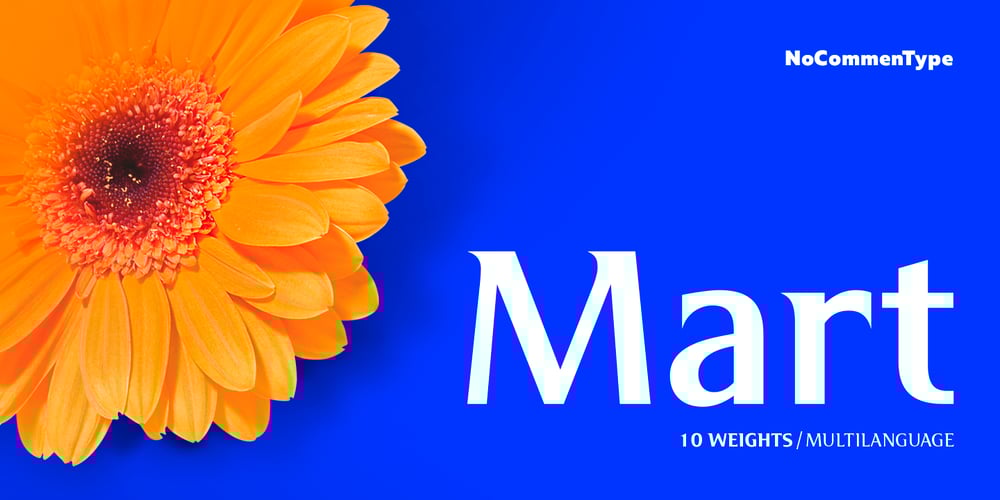
Mart
Mart font
Mart Font Family was designed by Asen Tiberiy Baramov and published by NoCommenType. Mart contains 7 styles and family package options. Mart is a semi serif font family. The main goal of the development was the creation of crisp, laconic and elegant outlines of the characters. It is intended to be used in headlines and text block in the appropriate magazines and printed materials. Mart is influenced by Rotis® Semi Serif by Otl Aicher and Apple Garamond. All European languages are supported. It can be used both on Windows and MacOS based computers. There is a Guide about choosing and working with Mart typeface.